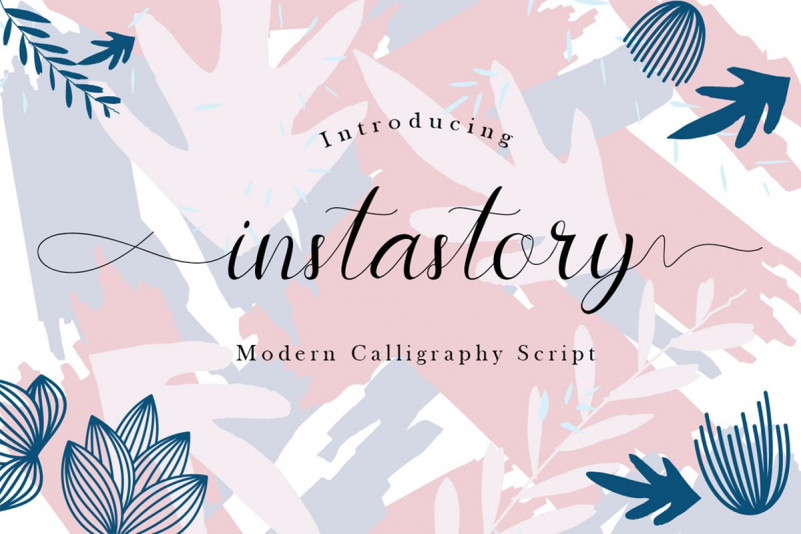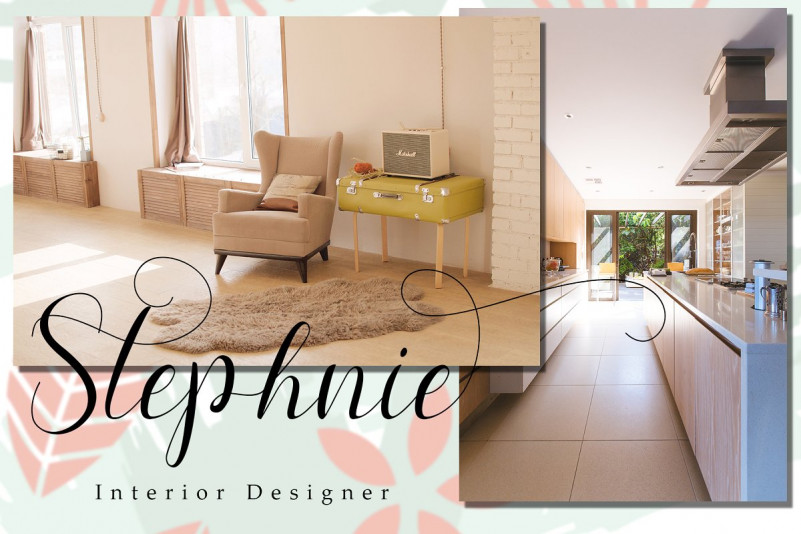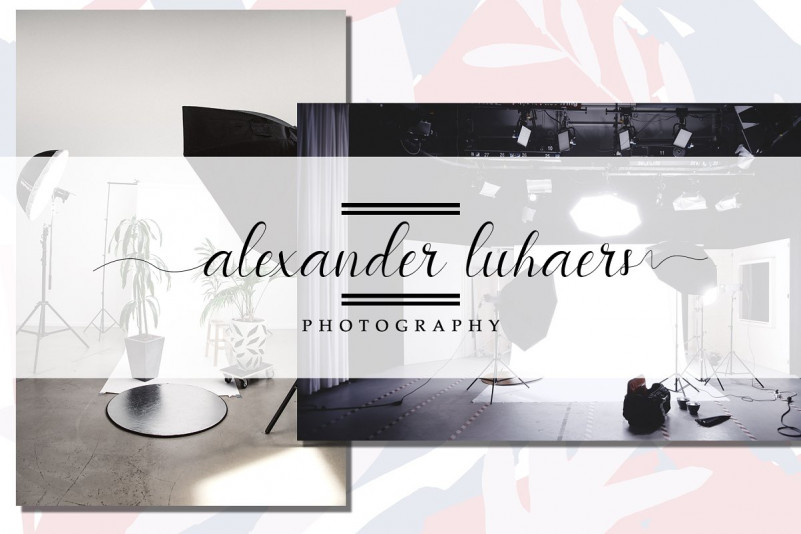
Instastory Font
Introducing instastory script with the kind of modern hand scratches. I hope you are interested in this font. If you want to use it for your work, this font can be used easily and simply because there are a lot of features in it to contain a complete set of letters lower and uppercase letters, assorted punctuation, numbers, and multilingual support. font also contains several ligatures and alternate style Stylistic Sets for those of you who have software that is able to work OpenType (Photoshop / Illustrator / InDesign).